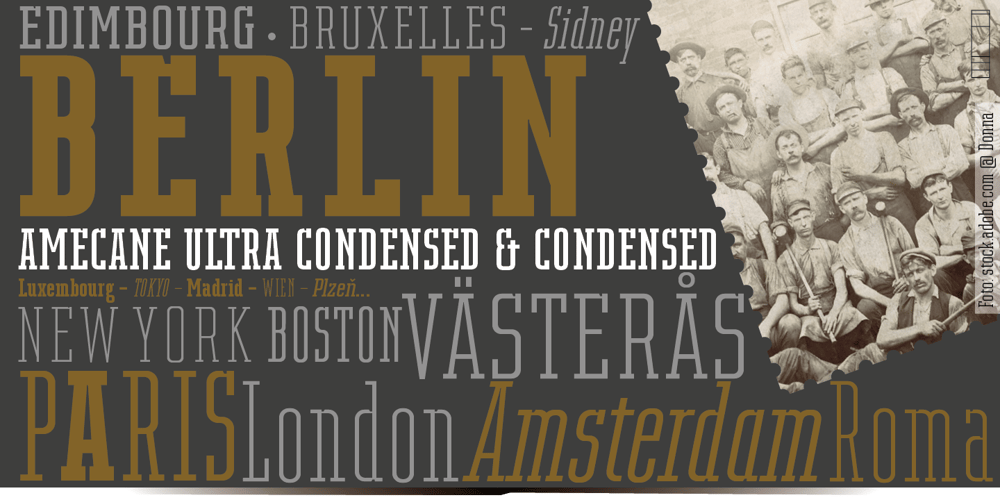
Amecane Font Family was designed by Loïc Choquet and published by designdefontes. Amecane contains 16 styles and family package options. Amecane is a mecane. (Mecanes are slab Fonts) inspired by old style typography introduced in the early nineteenth century. Amecane is a slab serif font – designed by Loïc Choquet.The Amecane font family consists of 16 fonts, 2 widths and 8 weights, with italics. Well-suited for editorial projects, logotypes, posters, packaging, etc. The font contains 348 glyphs with a wide range of flexibility for Latin language support for every typographical needs.